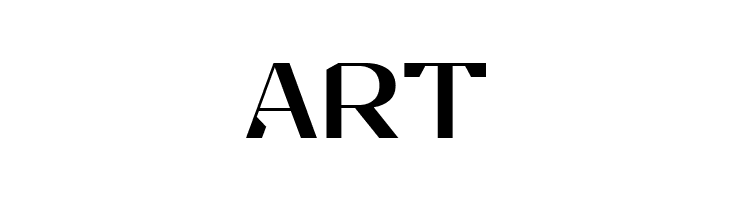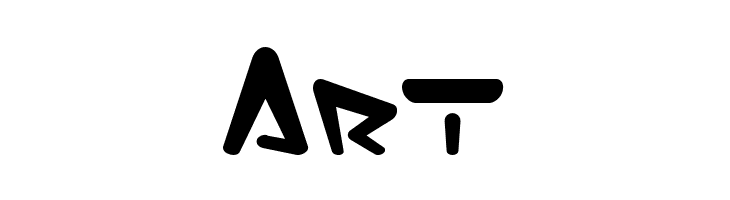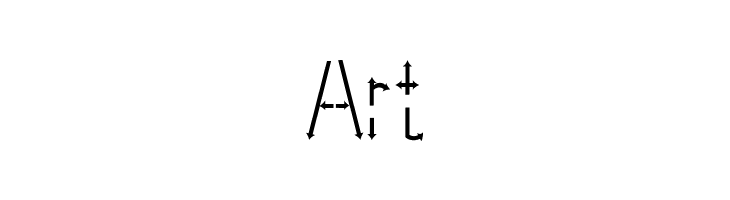
A bold, decorative font with playful curves and rounded strokes.
A dynamic, arrow-themed font with a modern and playful design.
A bold, modern font with sharp angles and smooth curves, ideal for striking designs.